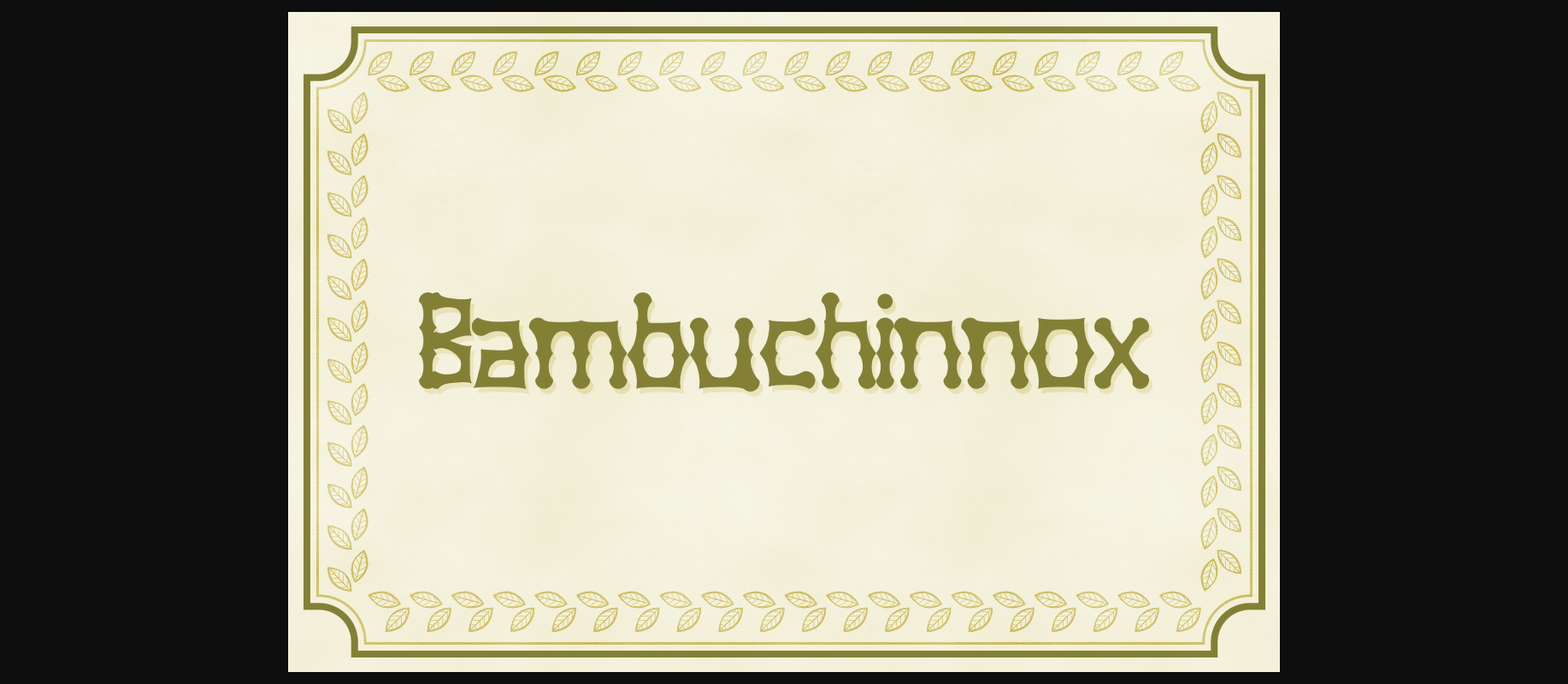
Bambuchinnox Font
About Bambuchinnox Font
Bambuchinnox is a cute decorative font, ideal for a wide range of typographic project types that need a homey feel.